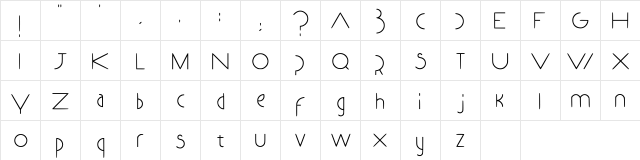
Arq Geometry Regular Free Font
Arq Geometry Regular
Design Context for Arq Geometry
Arq Geometry is a composed and adaptable typeface that performs quietly and consistently across a wide range of design contexts.